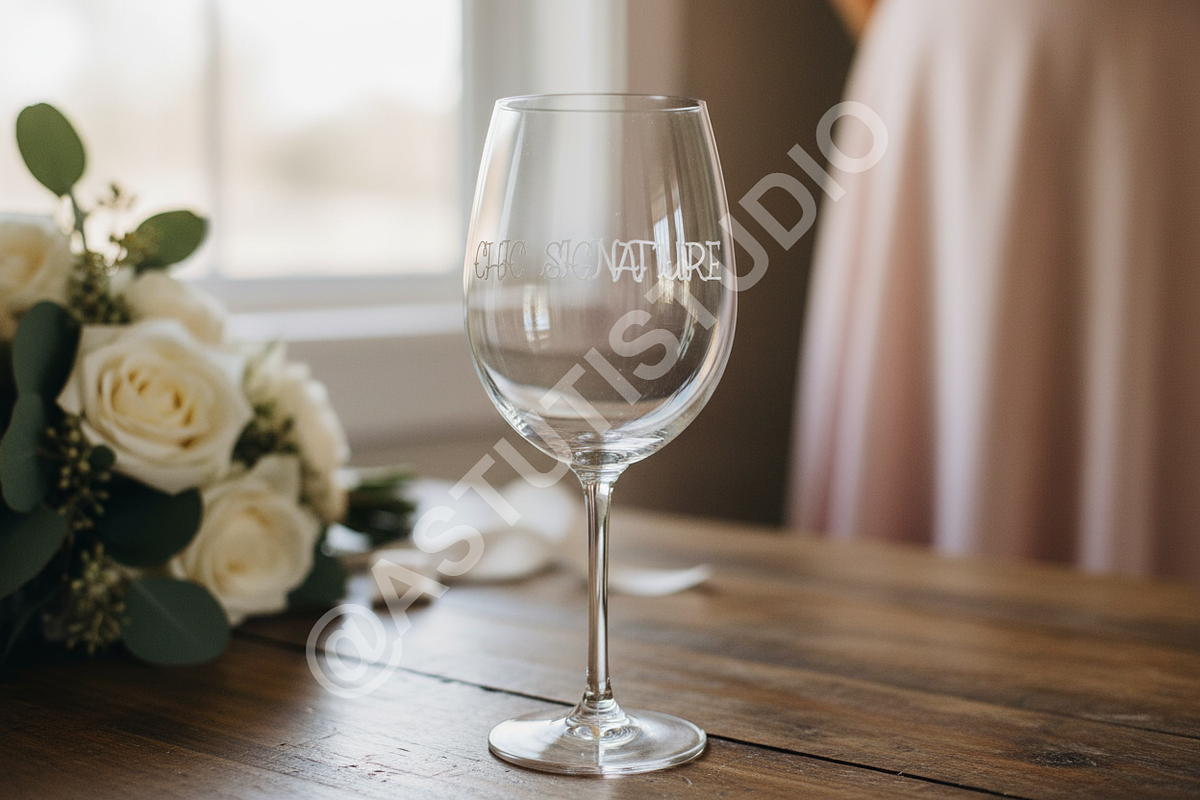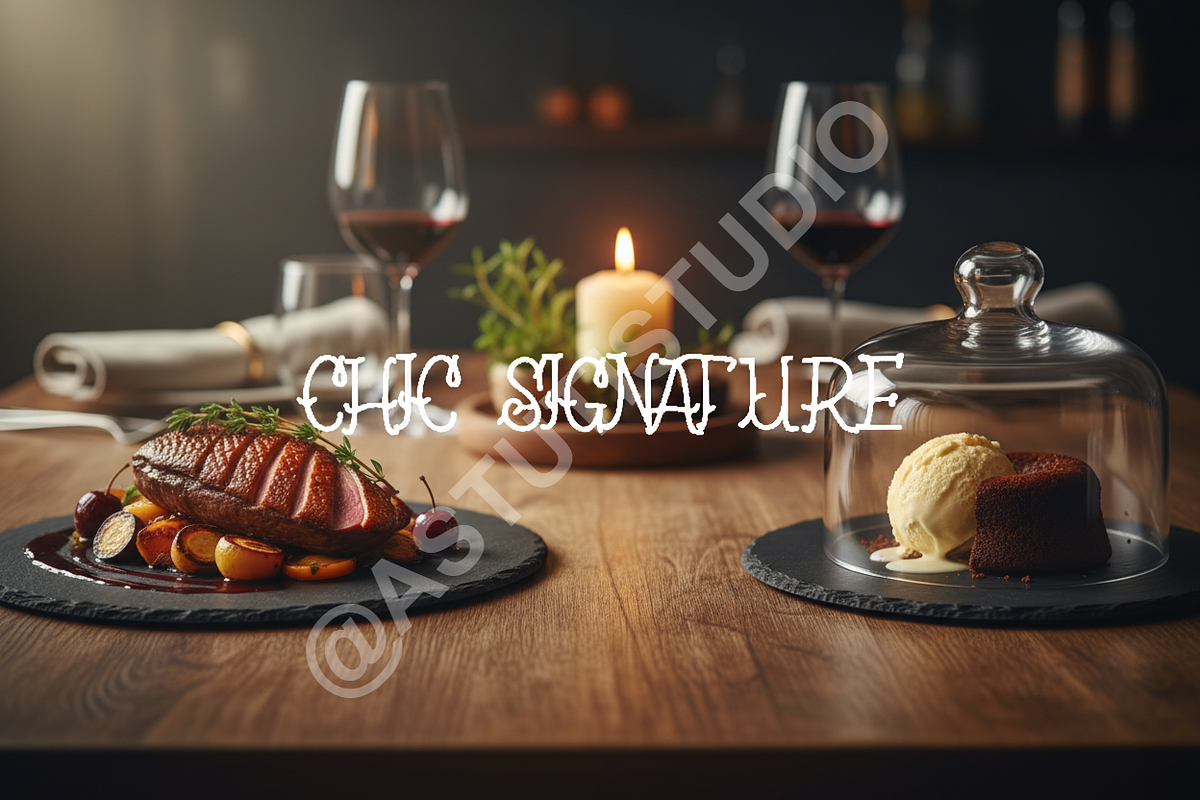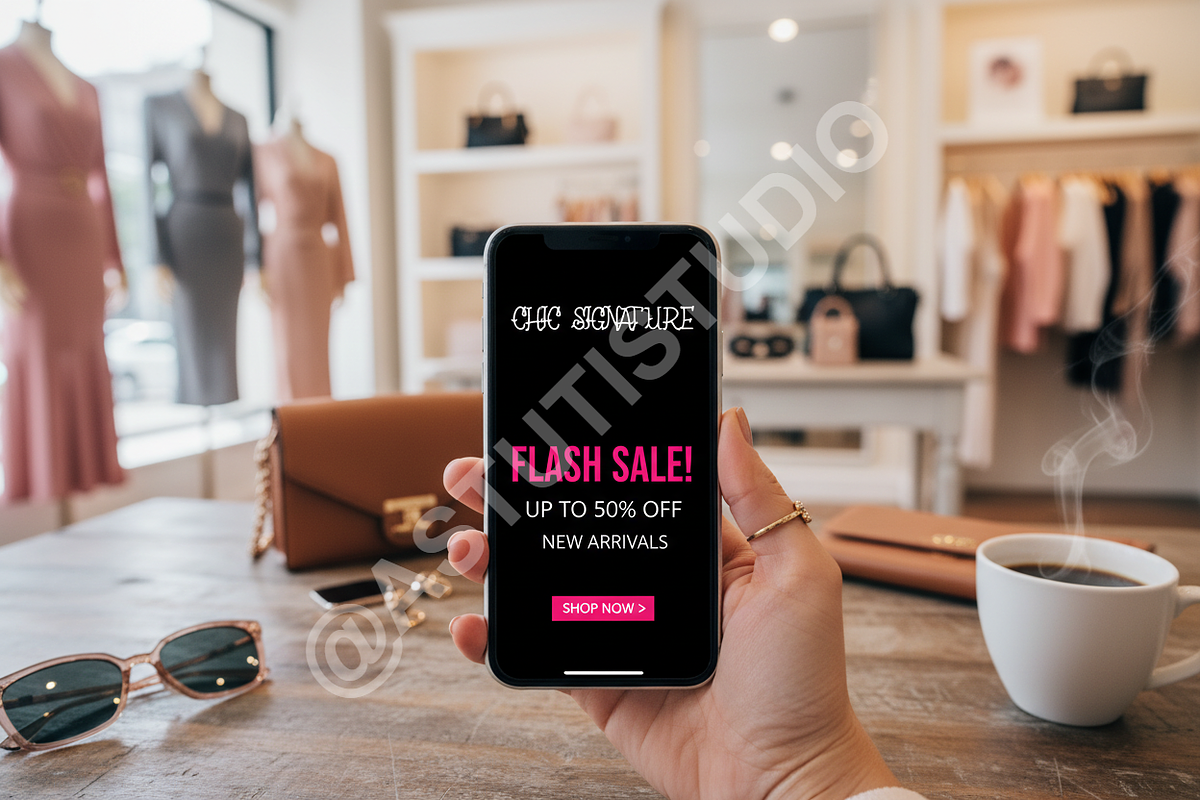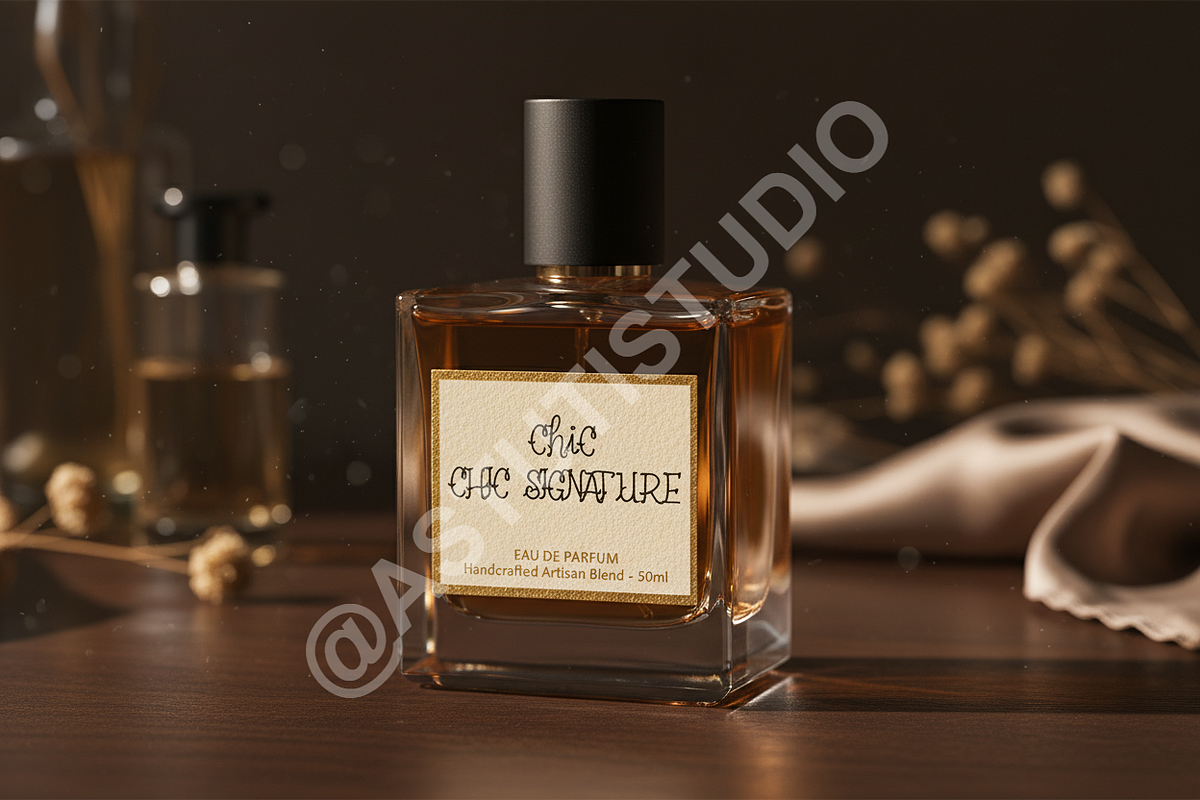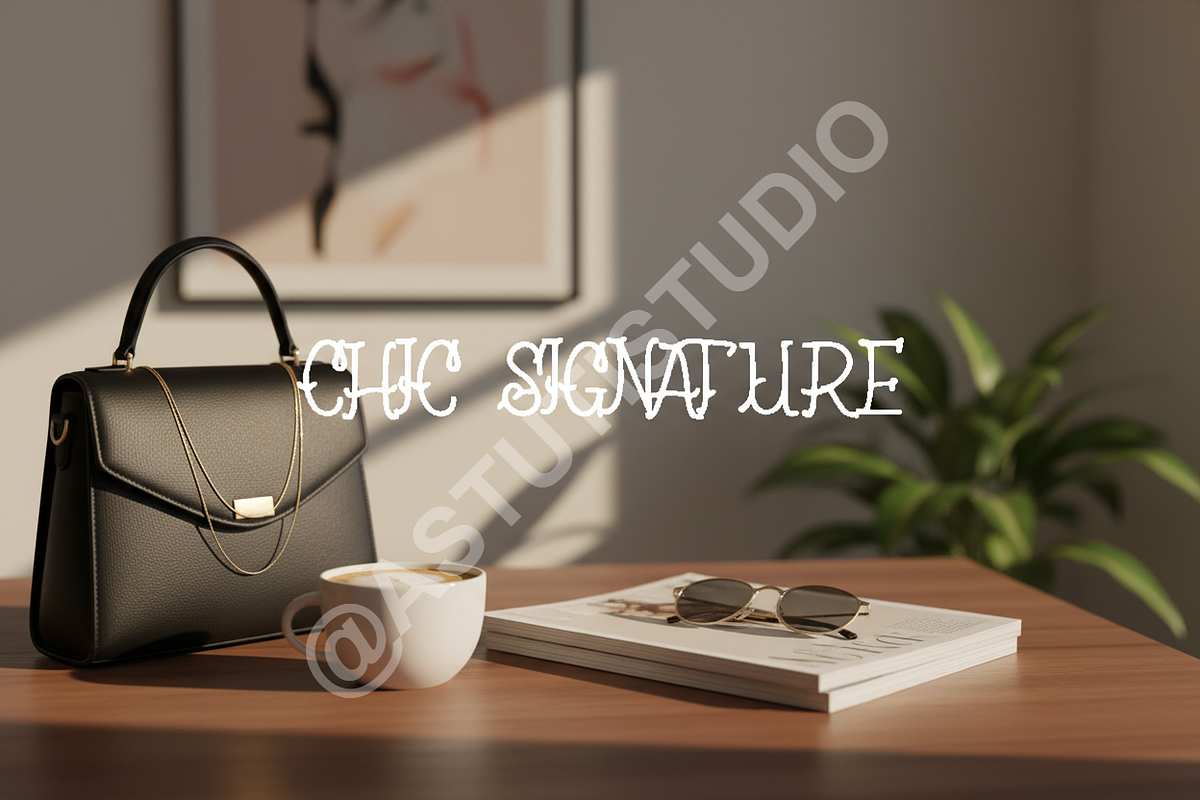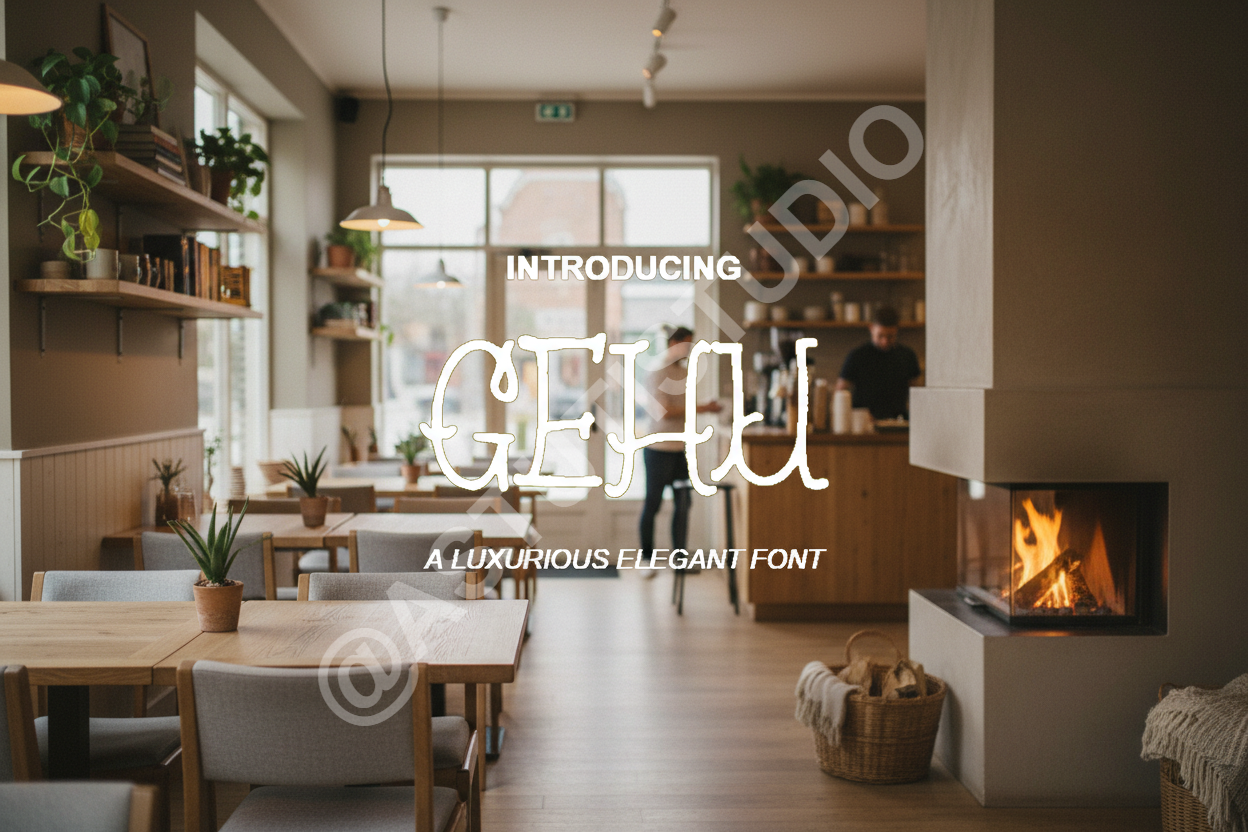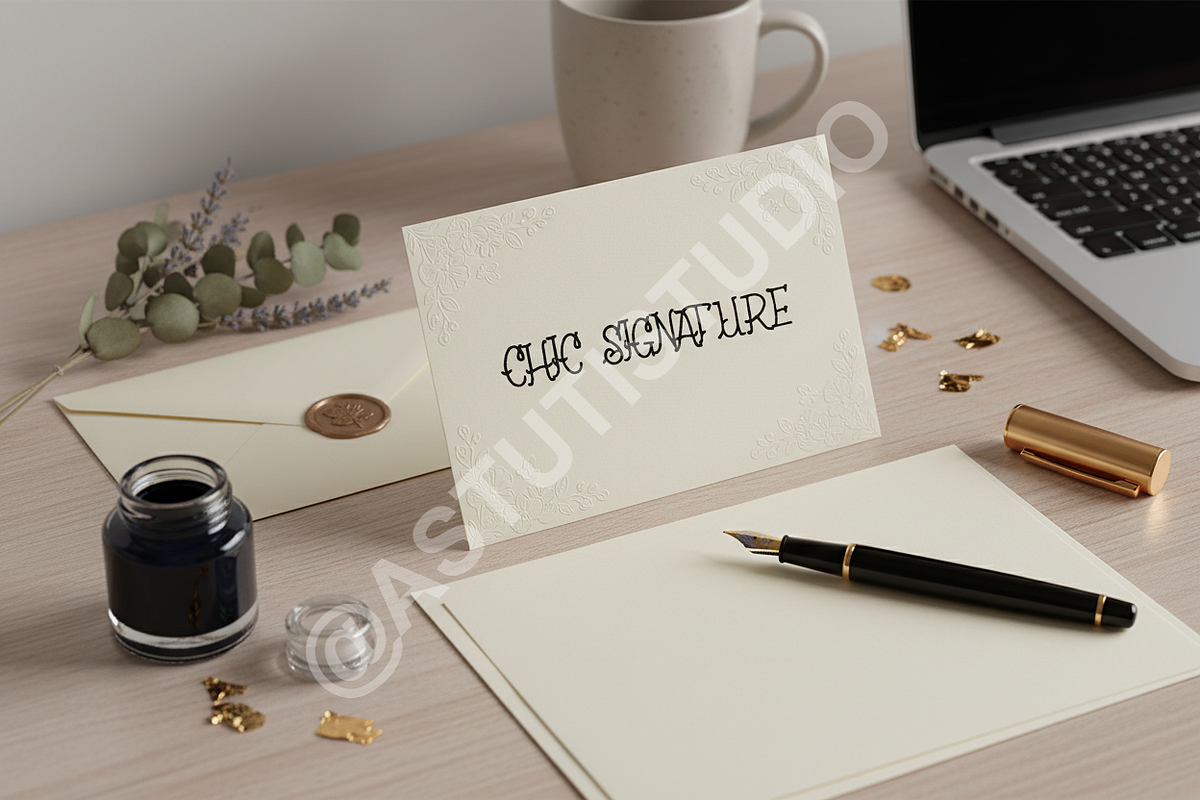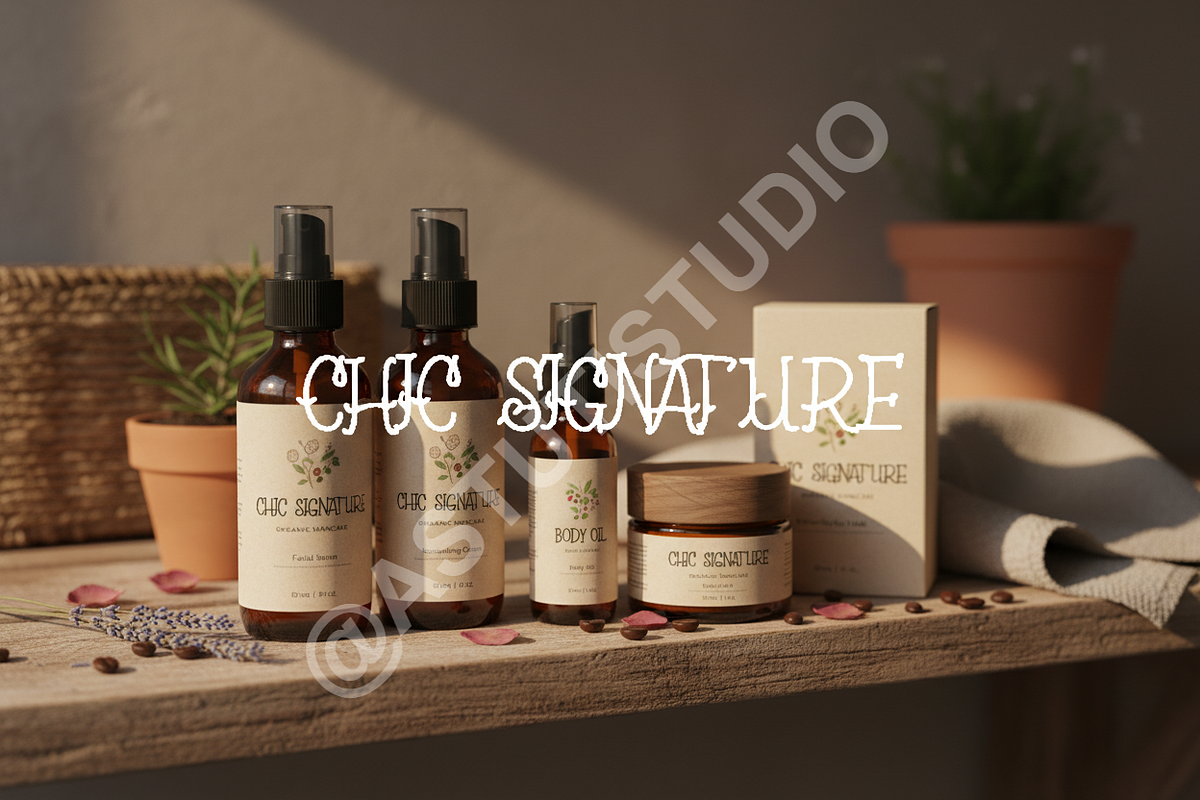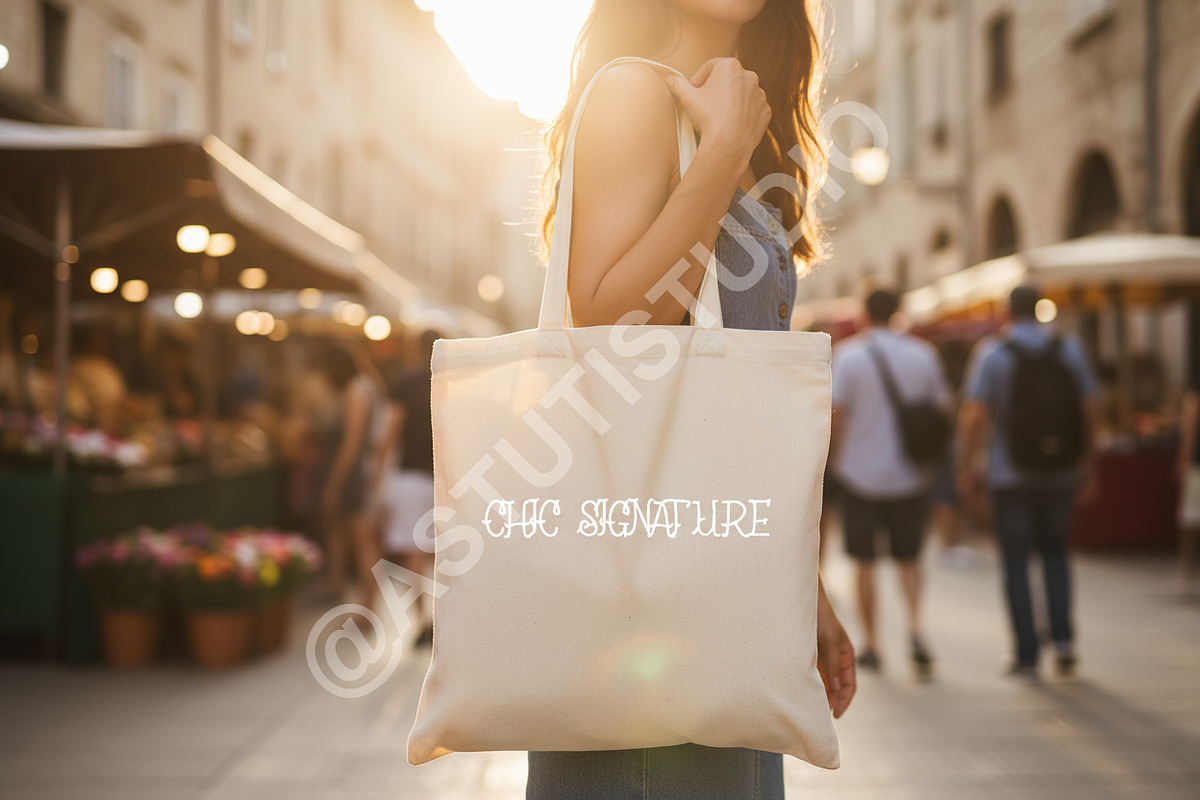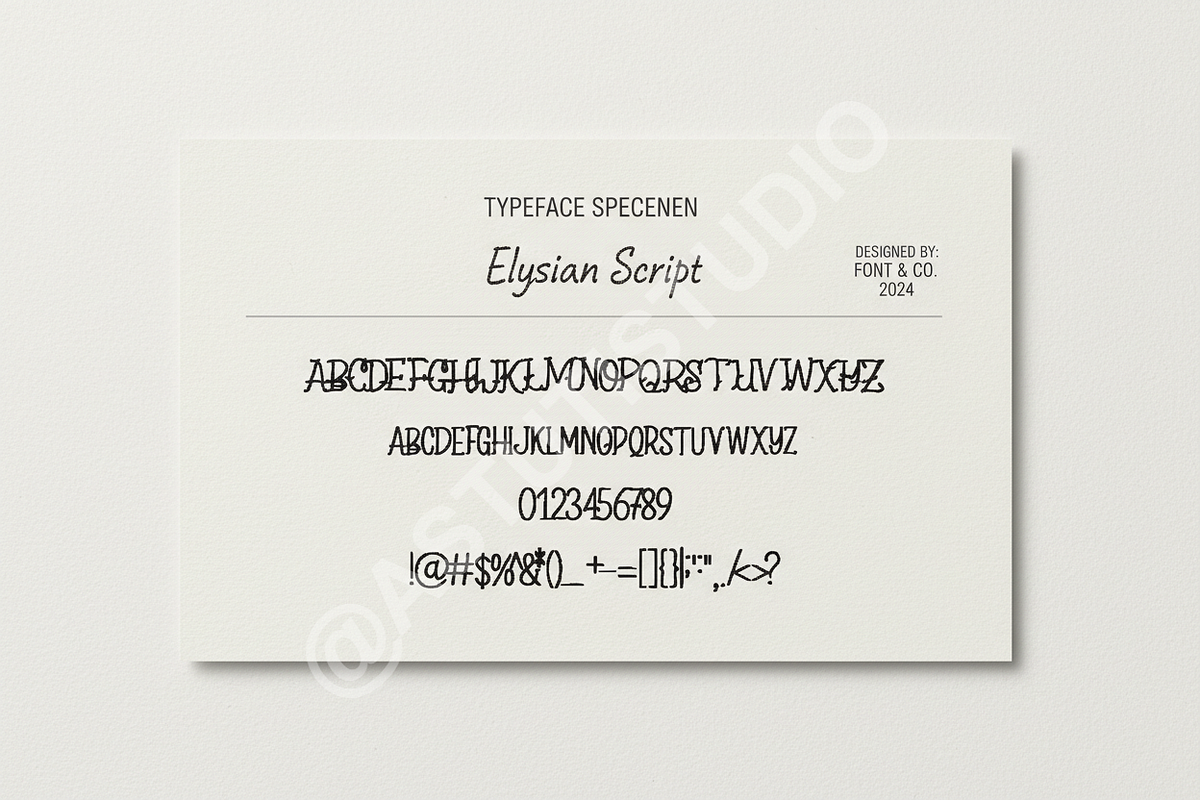
Gehu Typeface: Modern Luxury Display
Gehu is a meticulously crafted modern display typeface designed for the discerning creative professional. Drawing inspiration from timeless luxury aesthetics and contemporary minimalism, Gehu offers sharp lines, balanced spacing, and refined elegance that elevates any project. It is the definitive choice for brands seeking sophistication, clarity, and undeniable premium appeal.
- Refined Minimalism: Clean, precise letterforms ideal for modern branding, logo design, and exquisite packaging.
- Exceptional Versatility: Perfect for high-impact titles, sophisticated editorial headlines, elegant social media content, and striking website typography.
- Full Latin Character Set: Supports extensive language requirements.
- Kerning & Ligatures: Professionally kerned for optimal readability at all sizes.